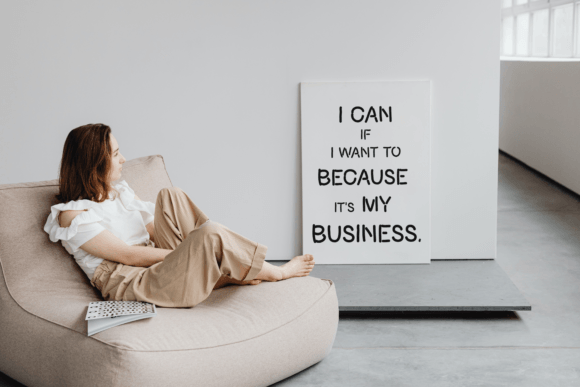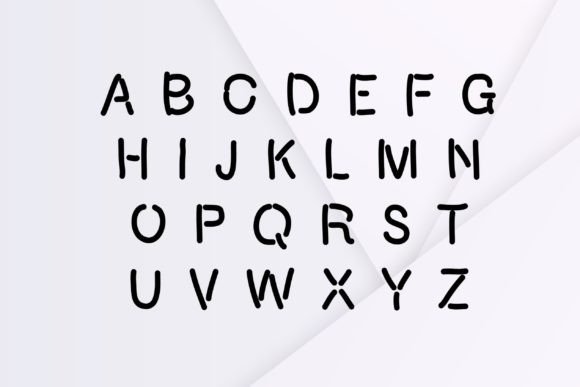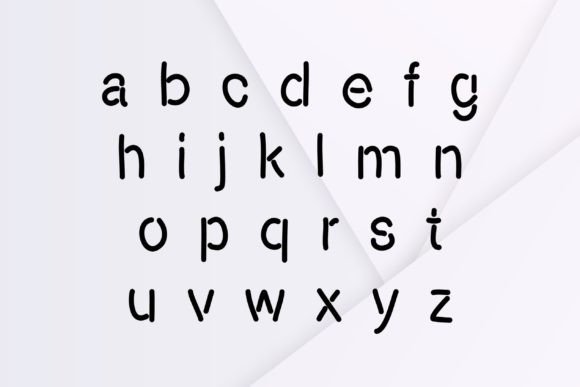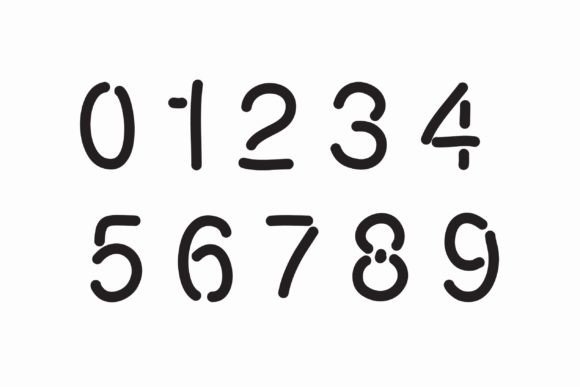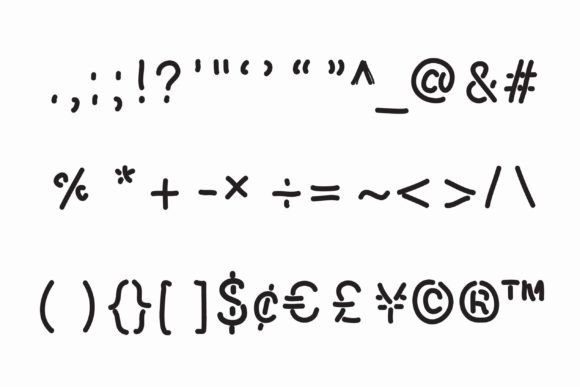
Introduction to Juzano Font
Have you ever stumbled upon a beautiful quote on a mug or a t-shirt that made you stop and appreciate the simplicity of a well-designed message? That’s exactly the kind of magic that the Juzano Font is capable of bringing to your creative projects. This unique display font, with its handwritten style, is a treasure trove of design possibilities waiting to be unleashed.
As designers, we’re always on the lookout for that special something that sets our work apart from the rest. And with Juzano Font, you’ve got a high-quality design resource that’s sure to elevate your designs to the next level. Whether you’re working on a personal project or a client brief, this versatile font is a valuable addition to your toolkit, offering endless possibilities for creative expression.
And the best part? With a transparent background, you can easily layer Juzano Font over any image or background, making it a breeze to integrate into your designs. So, what are you waiting for? Get ready to unleash the full potential of Juzano Font and take your designs to new heights!
Key Features of Juzano Font
- High-quality font designed for creative projects, offering a unique and modern aesthetic.
- Transparent background, allowing for seamless integration with different design elements and backgrounds.
- Designed with a high resolution of 300 DPI, ensuring crisp and clear typography in both print and digital applications.
- Comes in a single size, with scalable options for easy customization and flexibility in creative projects.
- Perfect for a variety of design projects, including logos, branding, typography, and more, due to its clean and versatile design.
Honest Review: Juzano Font
I recently came across the Juzano Font, and I must say it’s a fantastic addition to any designer’s toolkit. As a designer, I’m always on the lookout for high-quality design resources to elevate my creative projects.
The Juzano Font is a free download that boasts a beautiful, modern design with a transparent background. This makes it perfect for use in logos, icons, and graphics where a clear background is essential.
- High-quality design with a modern aesthetic
- Transparent background for easy editing
- No bold or italic weights available
- Not suitable for large-scale typography
Overall, the Juzano Font is a great addition to any designer’s collection. While it may not be perfect, its unique design and transparent background make it an excellent resource for creative projects.
How to Use Juzano Font
The Juzano Font is a versatile and high-quality design resource that can be used for a wide range of creative projects. With its transparent background and sleek design, it’s perfect for adding a touch of sophistication to your work.
Tips for Getting the Most Out of Juzano Font
To get the most out of the Juzano Font, try using it in combination with other high-quality design resources, such as graphics and textures. Experiment with different font sizes and styles to add visual interest to your design.
The Juzano Font is perfect for a wide range of creative projects, including:
- Website design
Compared to Juzano Font, Alex Brush Font offers a more refined and sophisticated look, making it suitable for formal and upscale designs.
Pacifico Font is a modern, elegant sans-serif font that’s perfect for a variety of design projects, from logos to website headers. Its clean and simple design makes it easy to read and suitable for a wide range of applications.
Pacifico Font offers a more minimalist look compared to Juzano Font, making it ideal for modern and sleek designs.